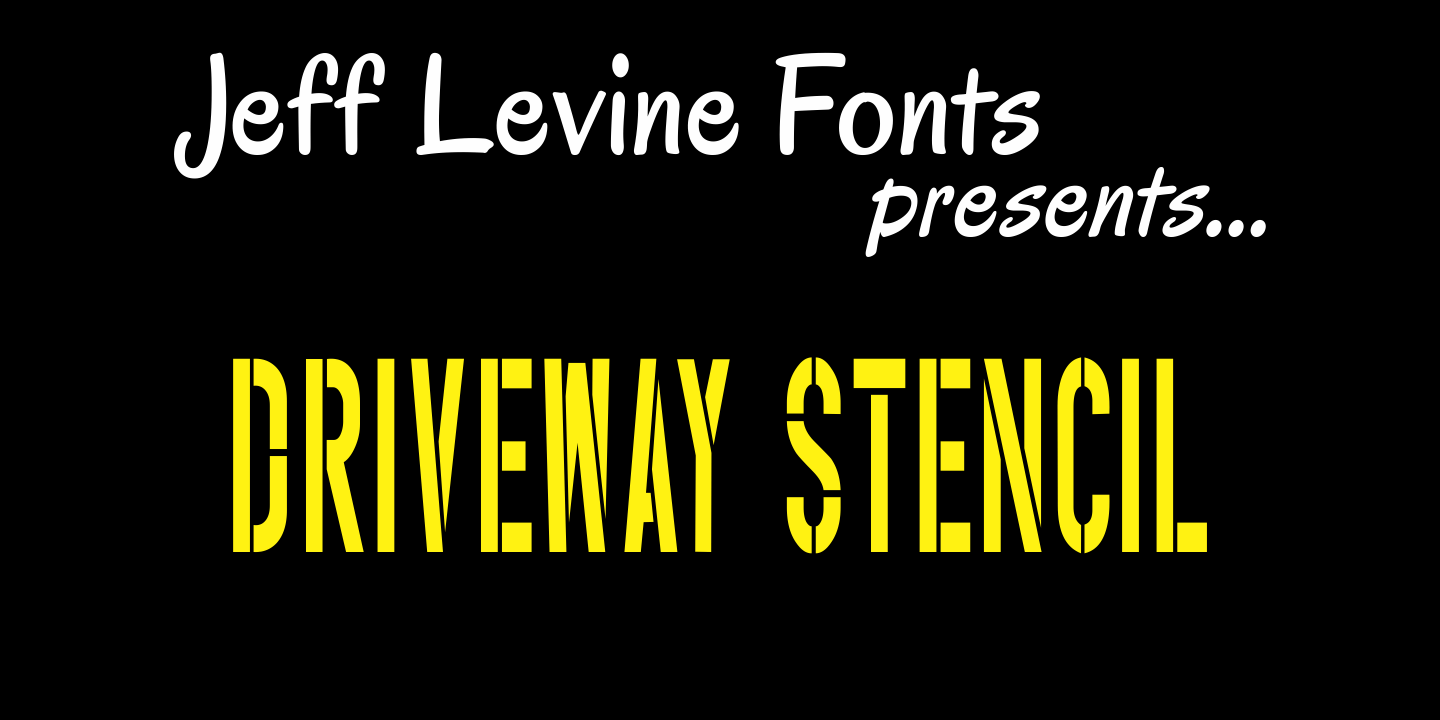
Driveway Stencil
We've all seen the informational markings on commercial driveways or roadways instructing us which way to turn, where to park, etc. They are usually in stencil lettering 16 inches or taller, with compressed letters that make the horizontal strokes look slightly thicker than the vertical ones.
By condensing the lettering in Narrow Stencil JNL by 20 percent, the result is Driveway Stencil JNL – a digital emulation of those painted road markings.
Driveway Stencil JNL Regular by Jeff Levine Fonts